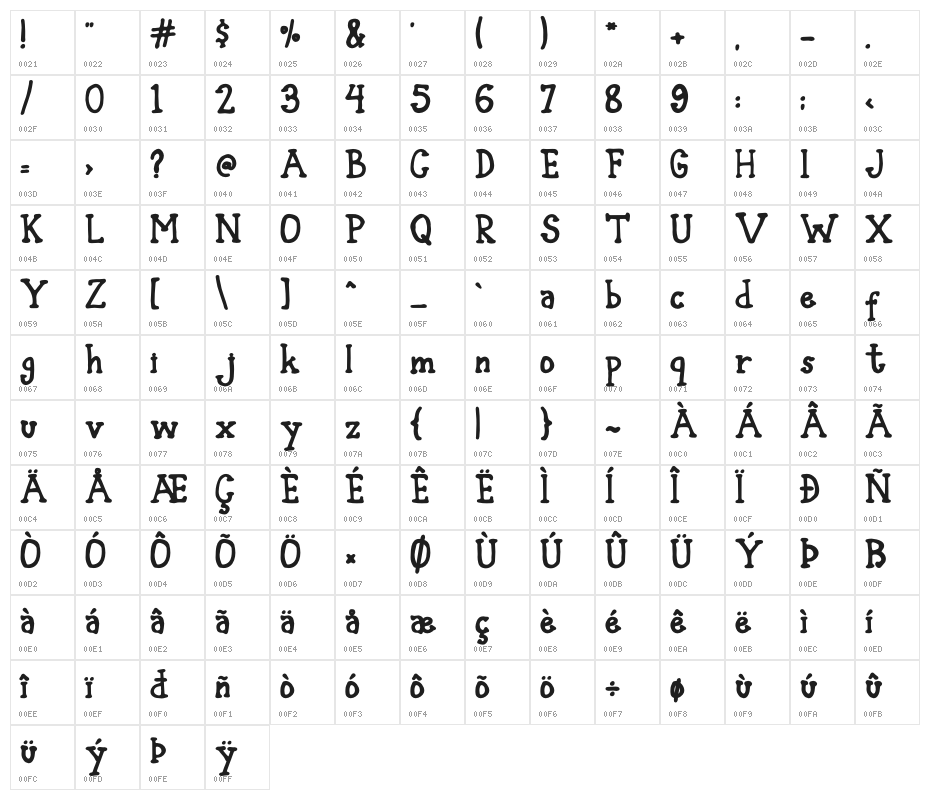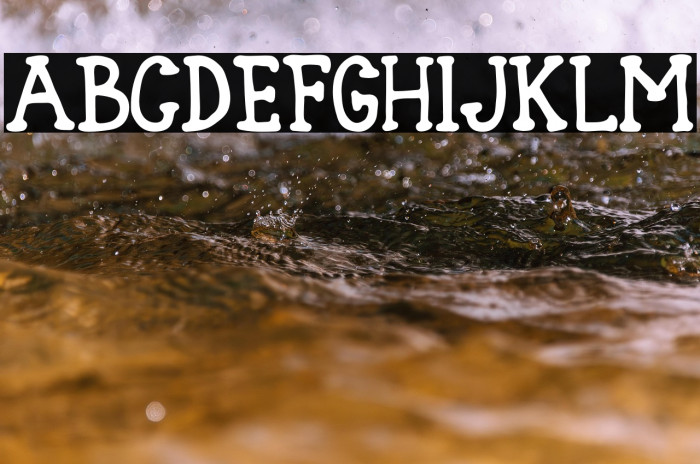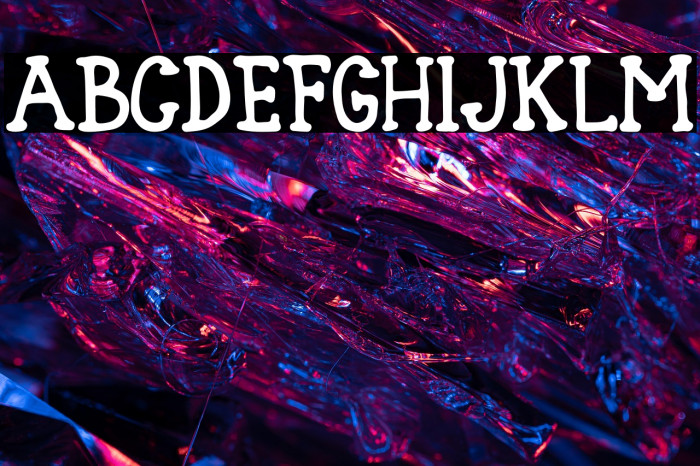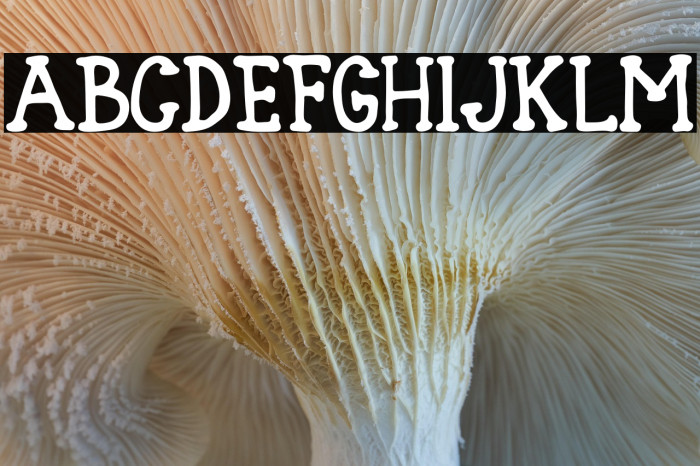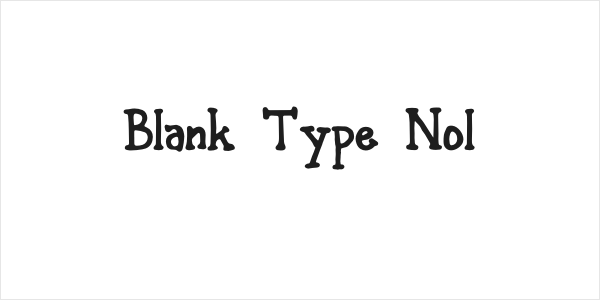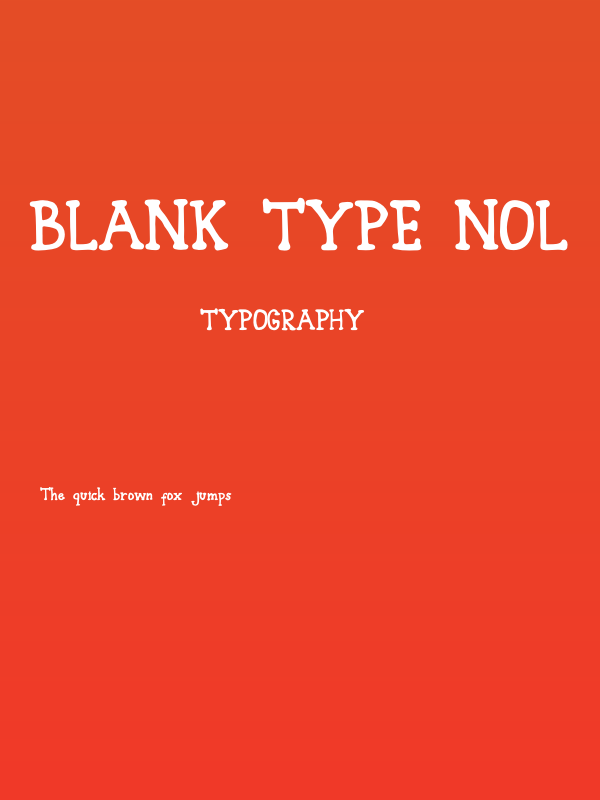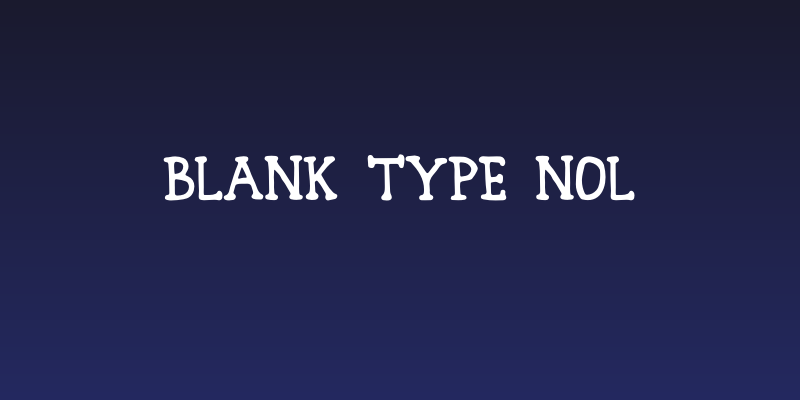
Blank Type Nol Font
Blank Type Nol Description
This font features a playful and whimsical design with a hand-drawn aesthetic. The characters are bold and rounded, giving a friendly and approachable feel. The strokes are uneven, adding to its casual and informal style. The uppercase and lowercase letters maintain a consistent style, with slightly exaggerated curves and loops. Numbers and special characters follow the same playful theme, making the font versatile for creative projects. Its unique style makes it stand out, ideal for designs that require a touch of personality and fun.
| Proposed Projects | Ideal for children's books, playful branding, greeting cards, and creative posters. |